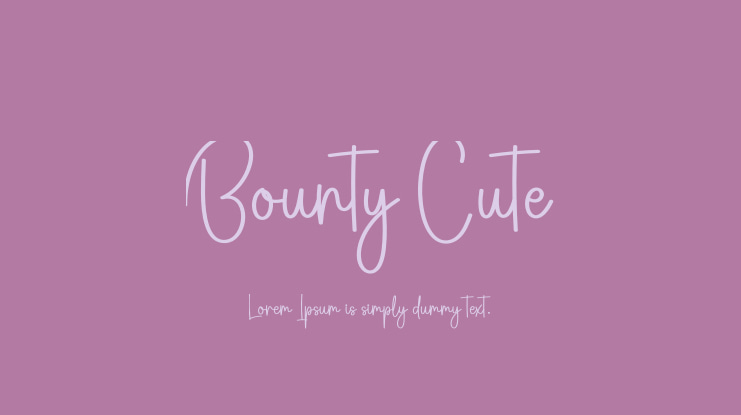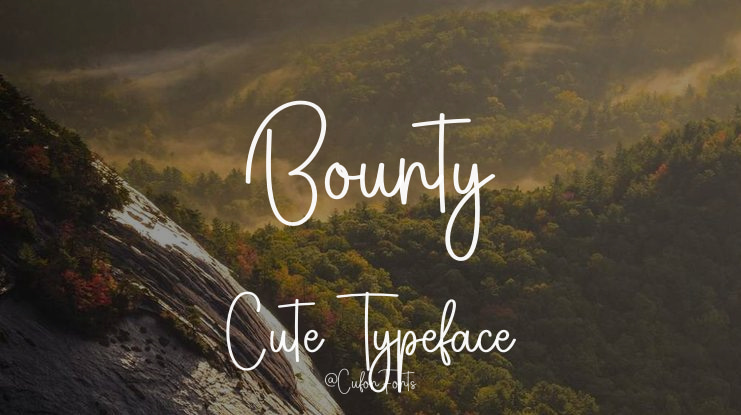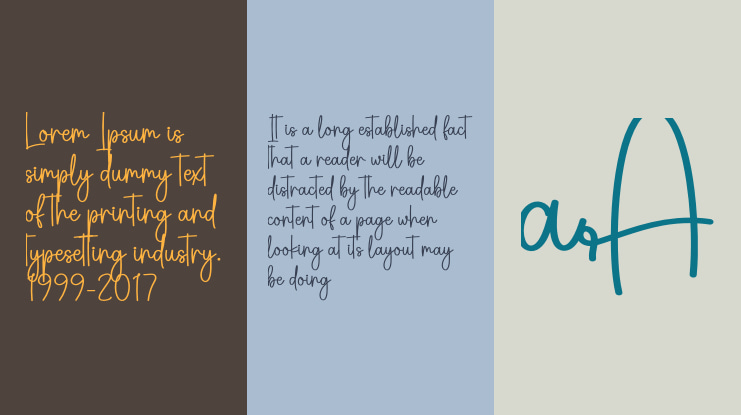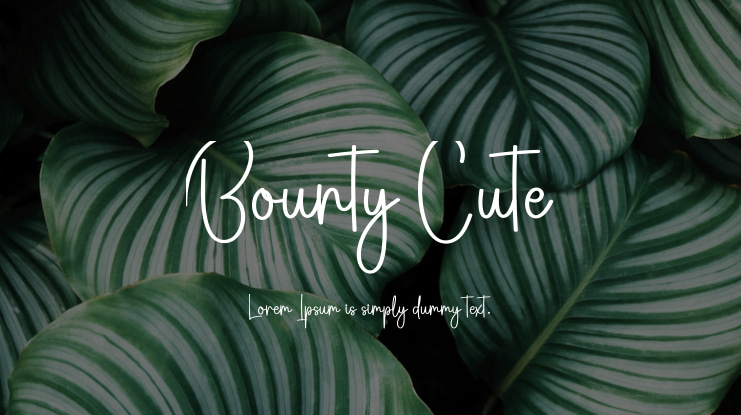
Discover our special creative products designed just for you, providing an extraordinary experience. Our latest style fonts are perfect for a variety of applications such as wall displays, wedding invitations, social media posts, logos, advertisements, product packaging, designs, labels, photography, watermarks, invitations, stationery, and any project that requires tasteful handwriting.